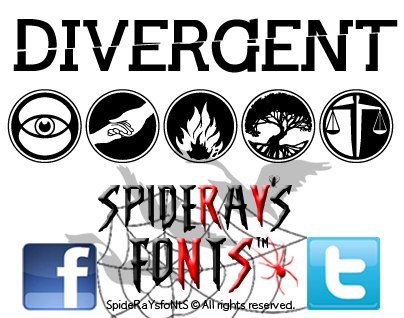
This fan-font has been inspired by the recent movie series about societal divisions that classify citizens based on their aptitudes and values , with similar angled horizontal serifs on the glyphs. NOTE: This version strictly for PERSONAL use only and contains 26 Upper Case Letters and some of the circular faction icons. For a fully populated embeddable and kerned version for use in professional media software applications please visit our Etsy Store @ http://etsy.me/2e9abBx |